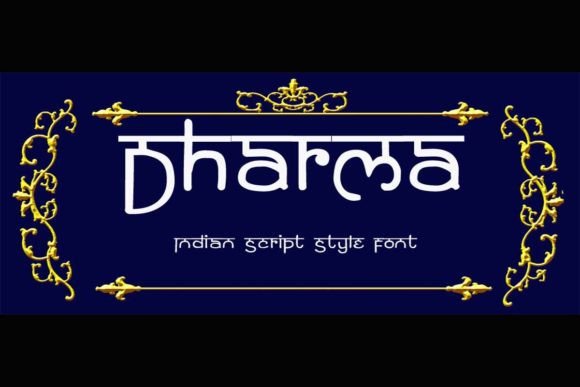
Introducing Gharma Font, the ultimate choice for those seeking the perfect font to elevate their creative projects. With its captivating Indian design style, this decorative font is sure to leave a lasting impression. Created by the talented wisudyantoro, Gharma Font is the epitome of artistic script, making it the ideal companion for a variety of applications.
Are you in need of a font that exudes elegance and spirituality? Look no further! Gharma Font combines the essence of Indian aesthetics with a touch of modern innovation. While not authentically Indian, this font captures the essence of Indian philosophy, making it the best font for spa and yoga studios. Its graceful curves and intricate details make it a natural choice for crafting logos that reflect serenity and tranquility.
If you're searching for a font that can transport your audience to the vibrant world of Indian culture, Gharma Font is your answer. Whether you're designing book covers on Indian philosophy or creating promotional materials for Indian-themed restaurants, this font will instantly capture attention. Its unique style adds a touch of exoticism and authenticity, leaving a lasting impression on anyone who encounters it.
But Gharma Font doesn't stop there. Its versatility extends to the world of fashion and apparel. Imagine your clothing brand adorned with this captivating font, instantly elevating your designs to new heights. Whether you're creating trendy t-shirts, elegant dresses, or bohemian accessories, Gharma Font will infuse your products with a sense of style that is both timeless and captivating.
With its extensive range of applications, Gharma Font is perfect for designers, entrepreneurs, and artists alike. Its eye-catching appeal coupled with its ability to convey emotions and capture attention makes it a must-have in your font library. Whether you're looking to create a sense of calm, evoke a sense of spirituality, or add a touch of cultural richness to your projects, Gharma Font is the ultimate tool to bring your vision to life.